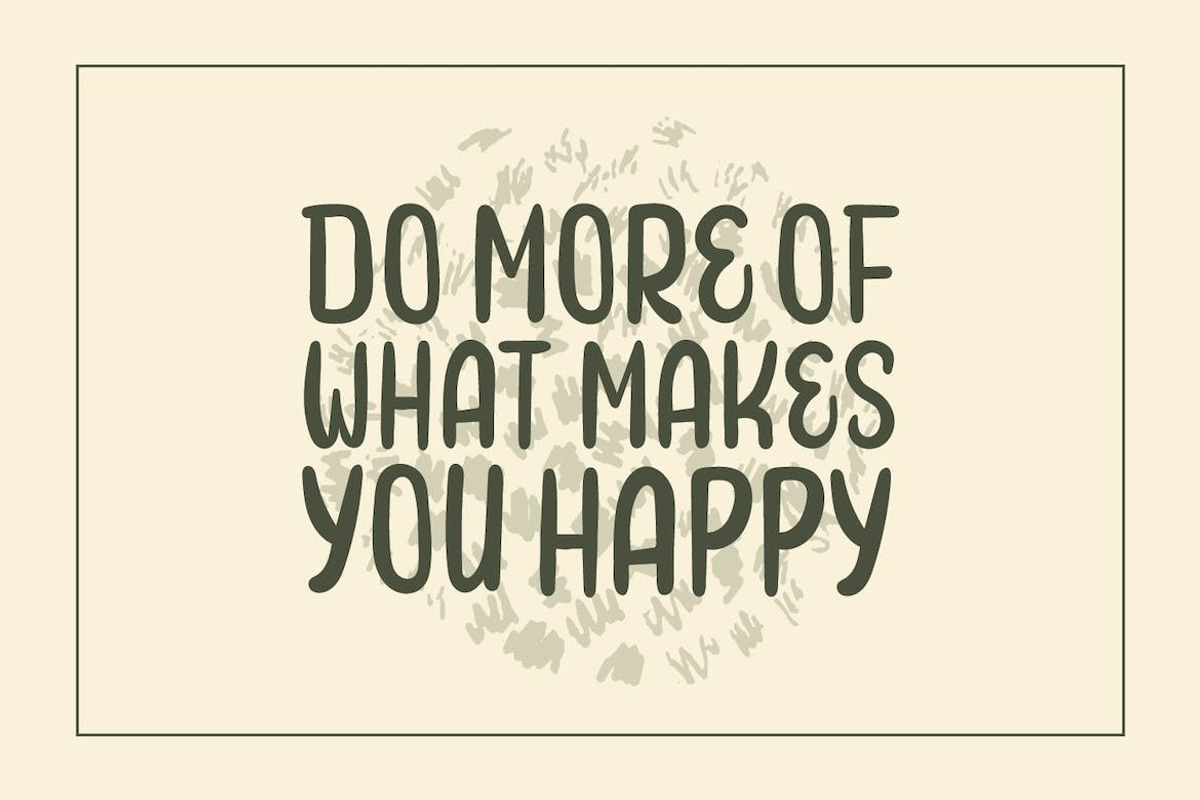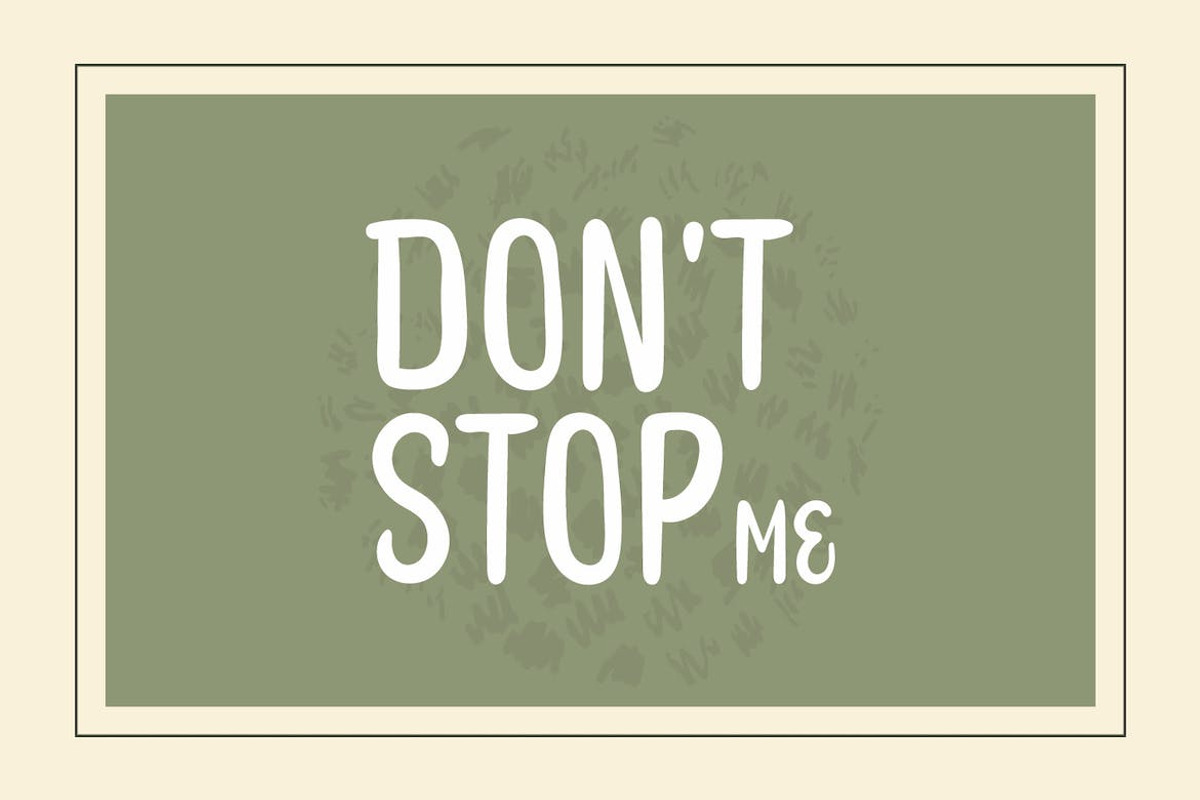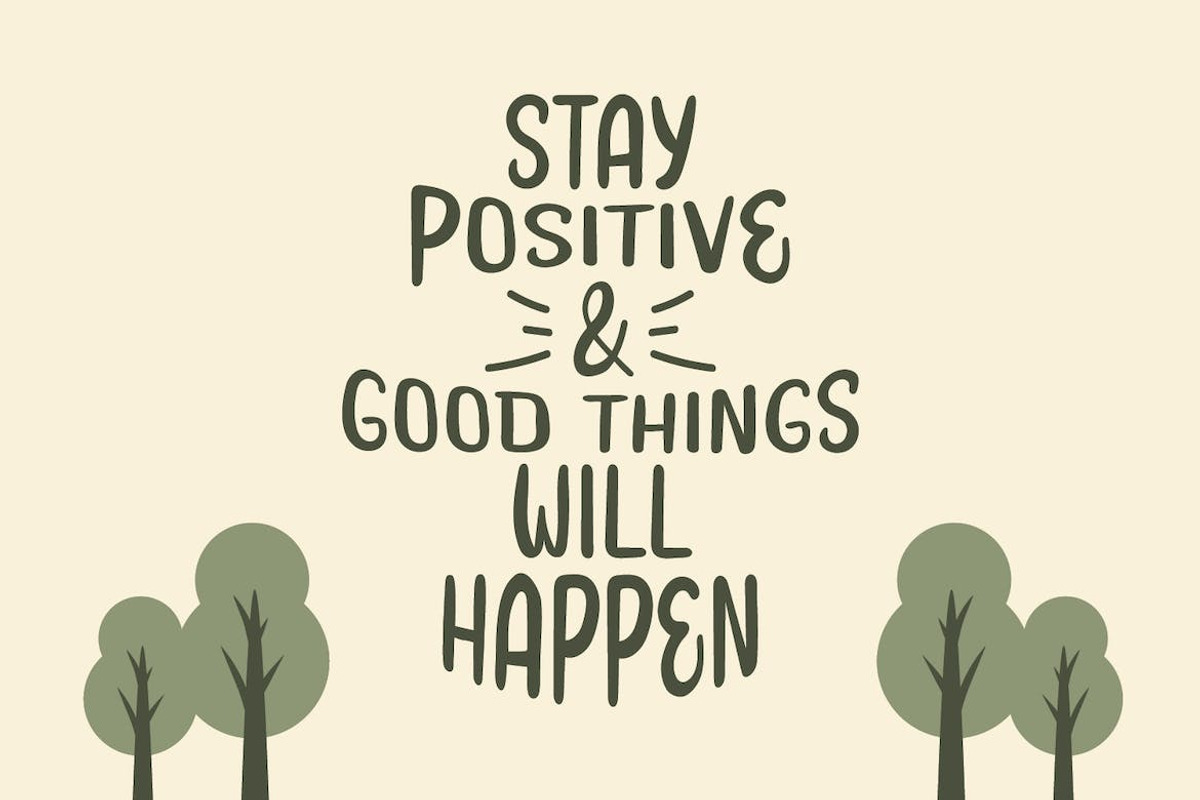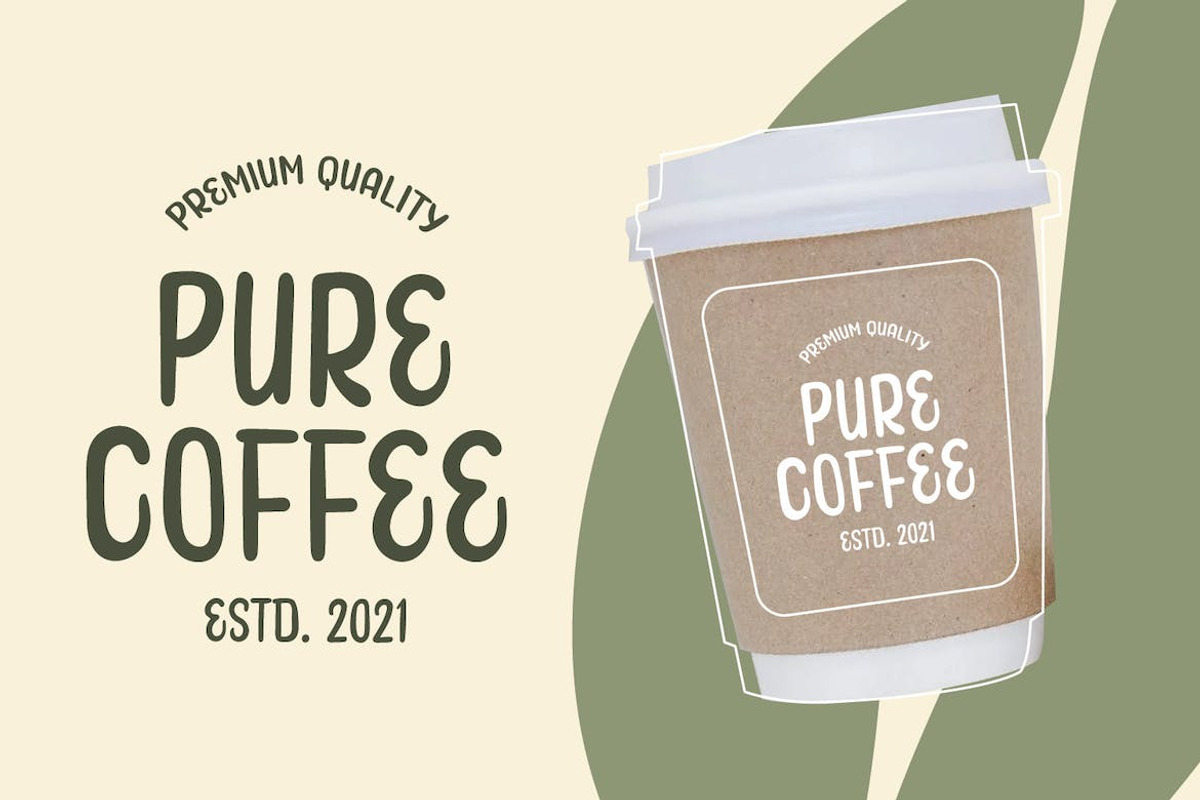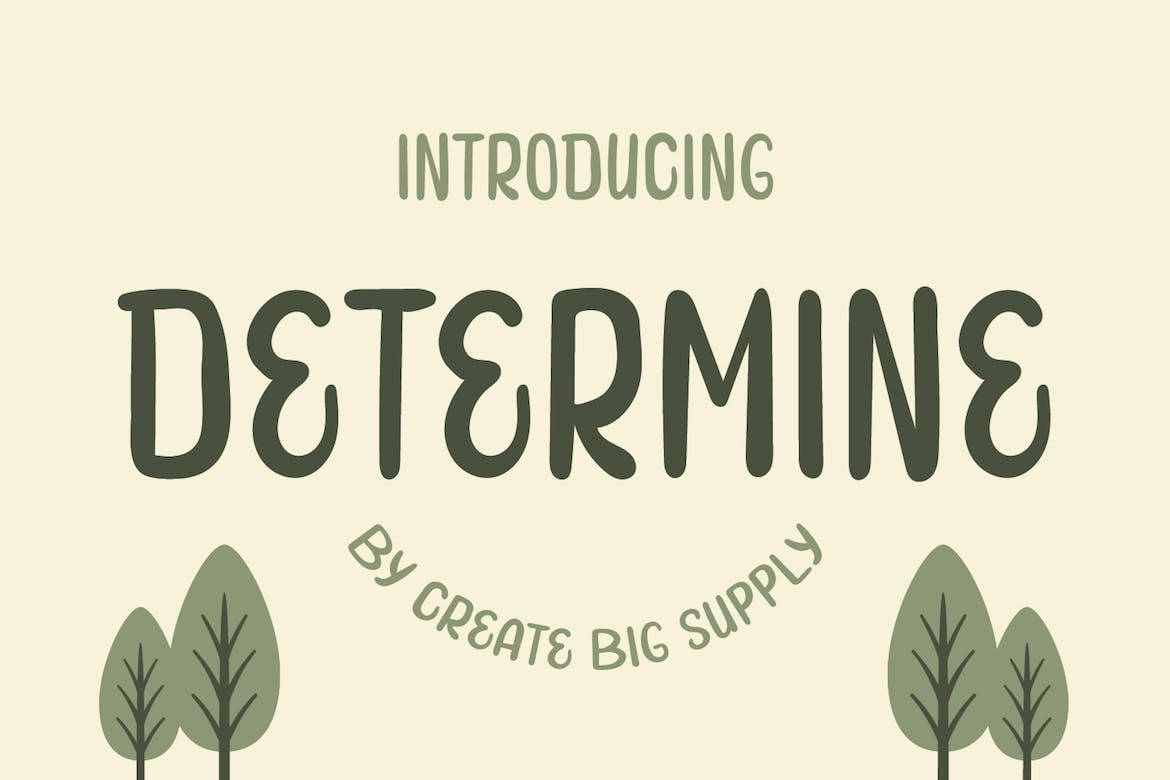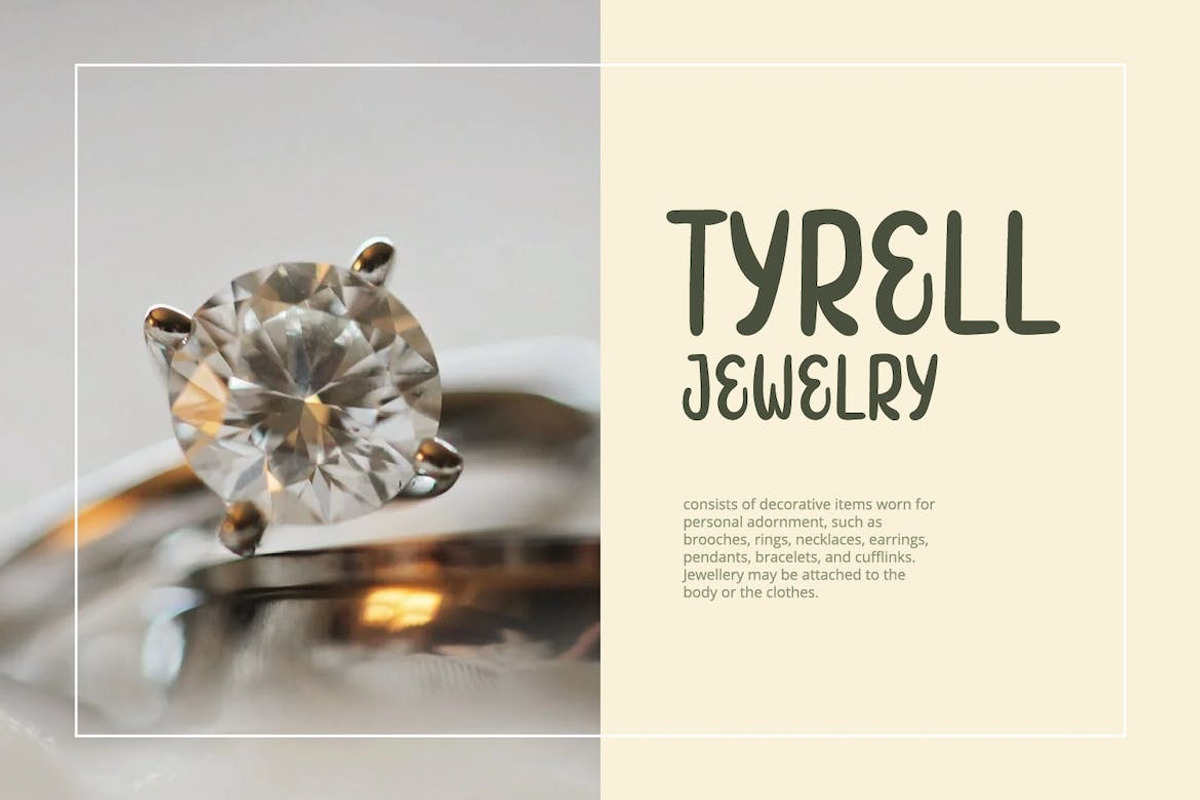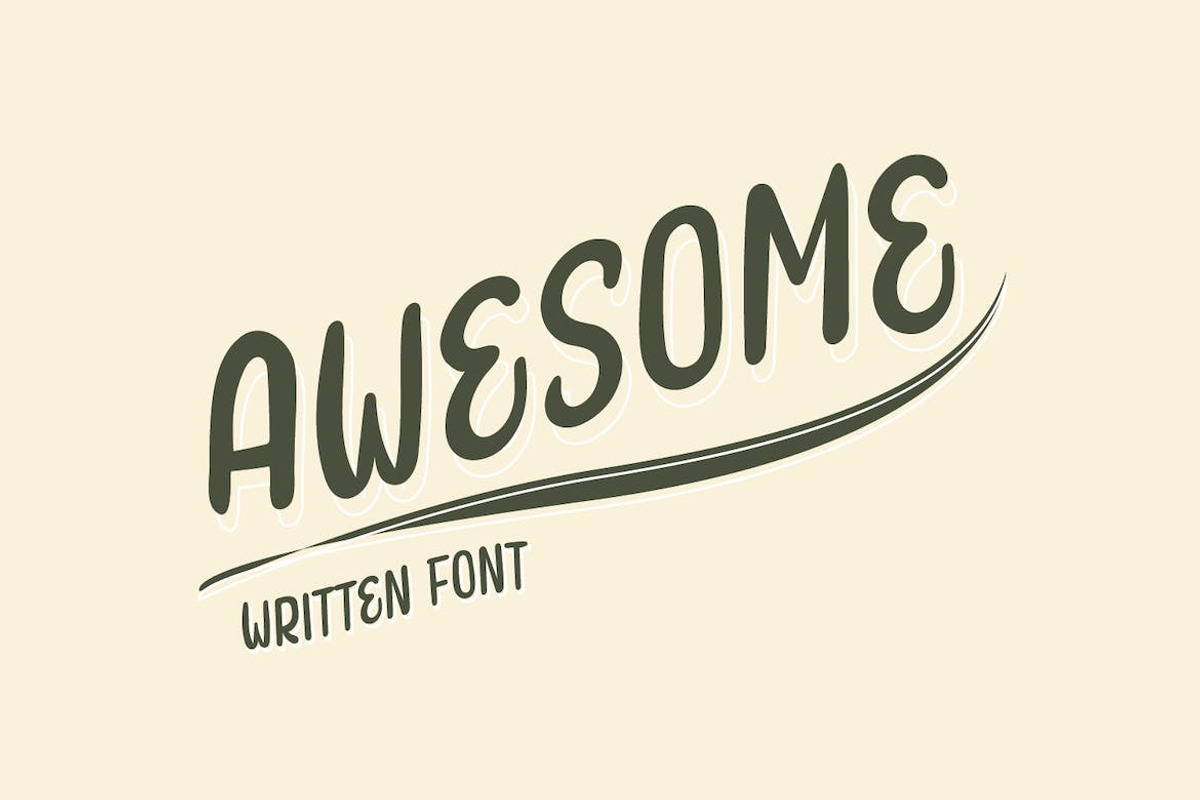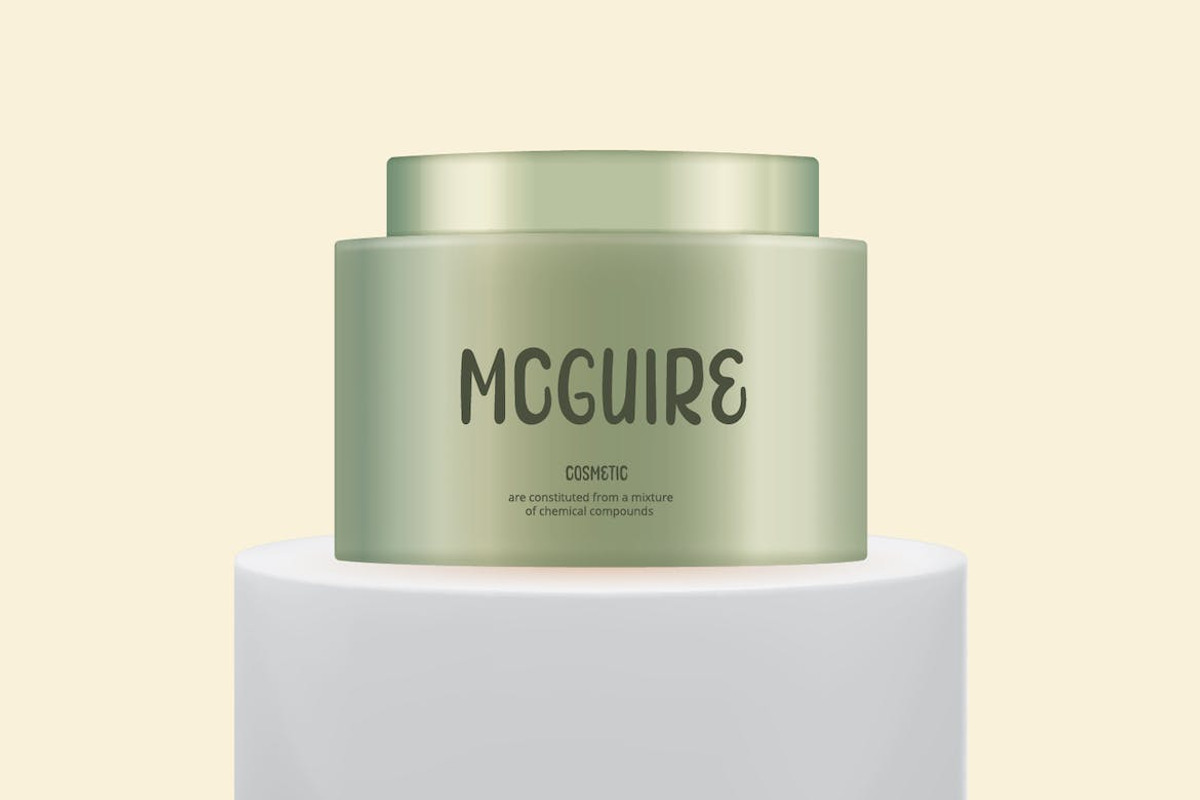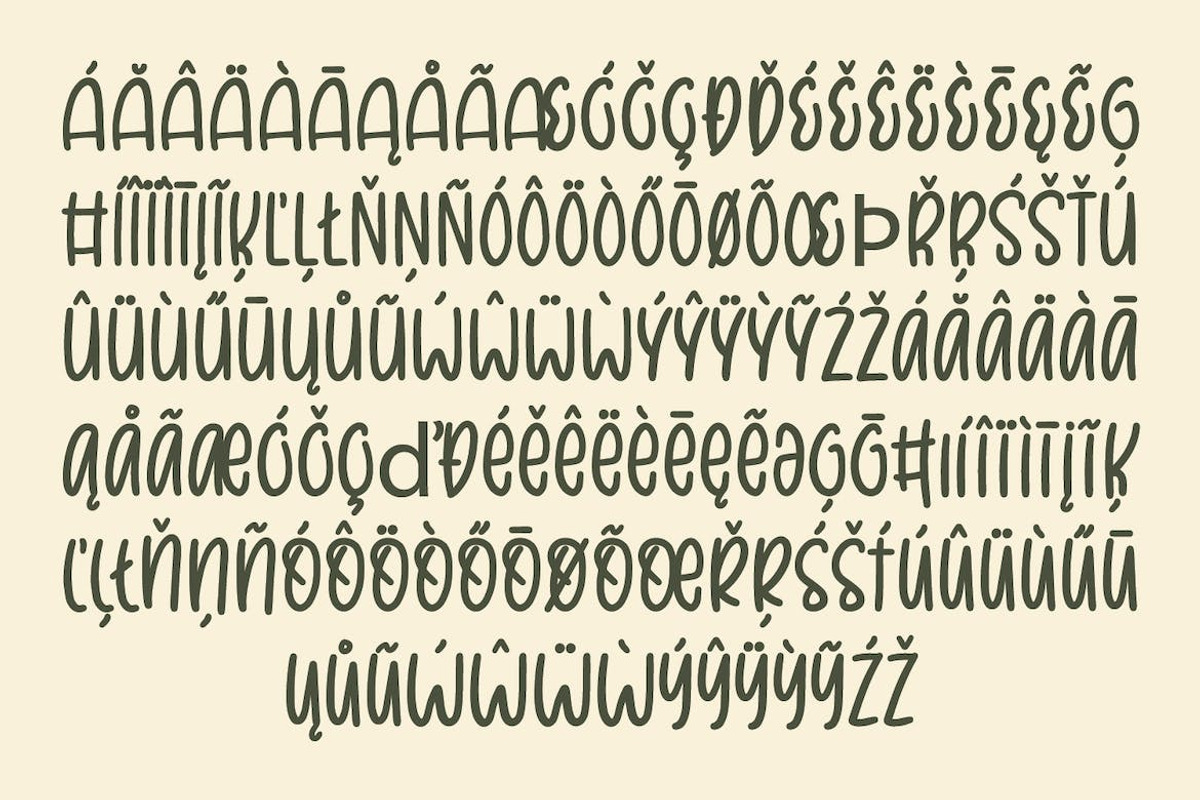
Determine - Handwriting Display Font
Discover Determine, a captivating display font with a unique handwritten style. Despite its all-uppercase letters, this font offers endless creative possibilities. It features a wide range of characters, including uppercase and lowercase letters, numbers, and punctuations. With multilingual support and PUA encoding, Determine ensures seamless integration into various projects. This purchase includes TTF, OTF, and WOFF font files, providing convenience and versatility.